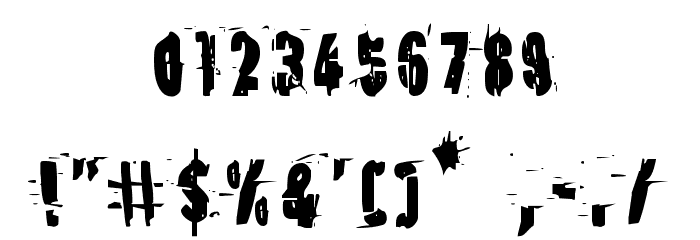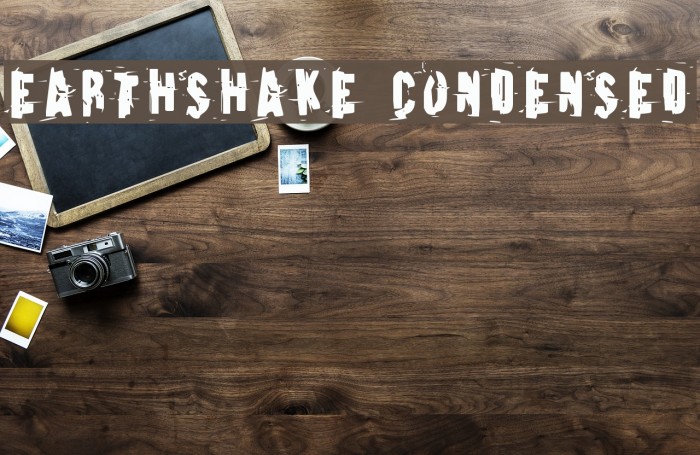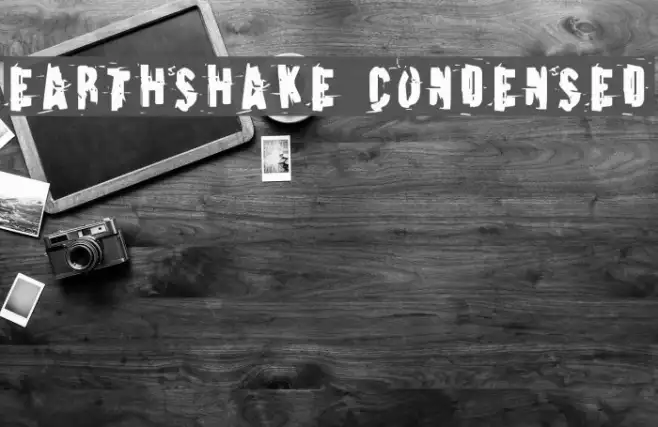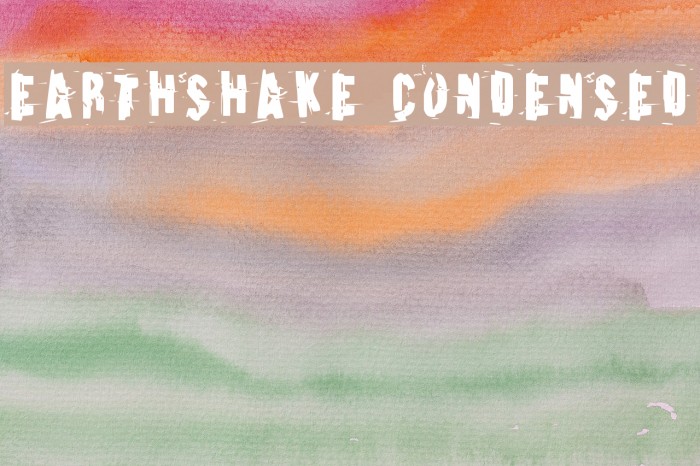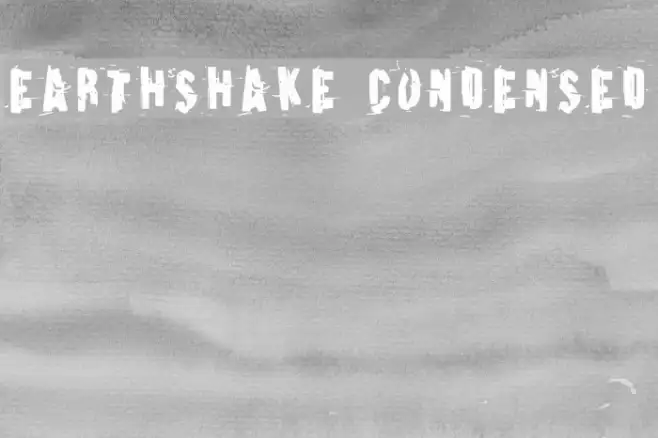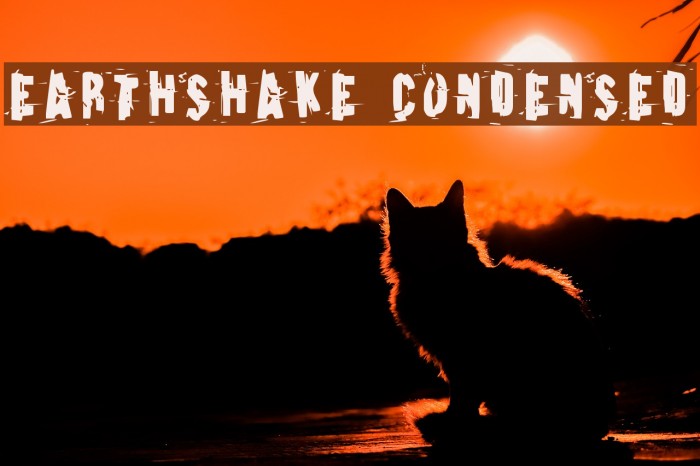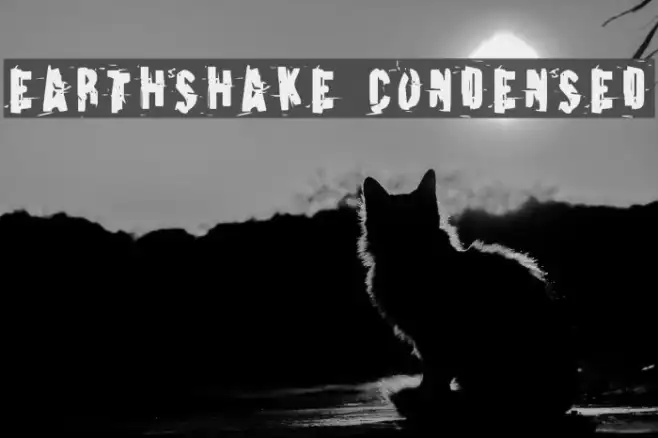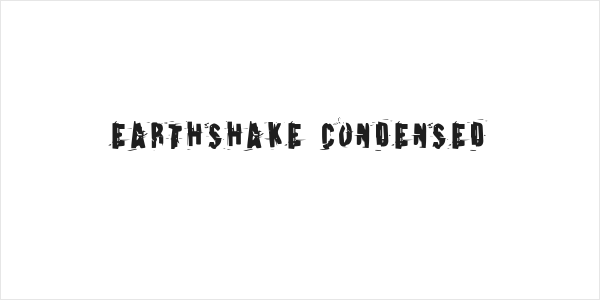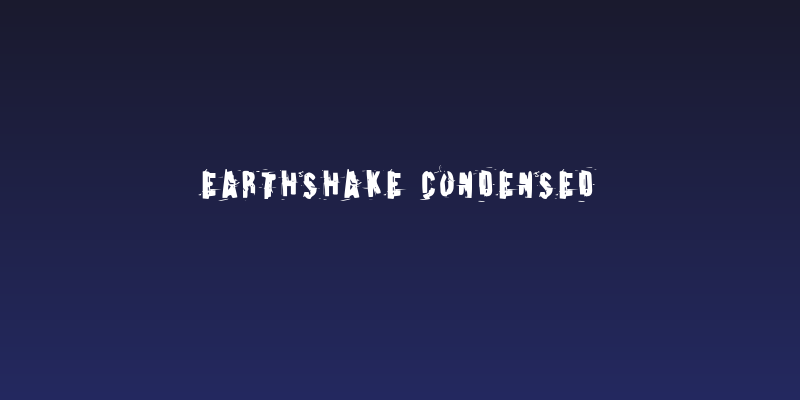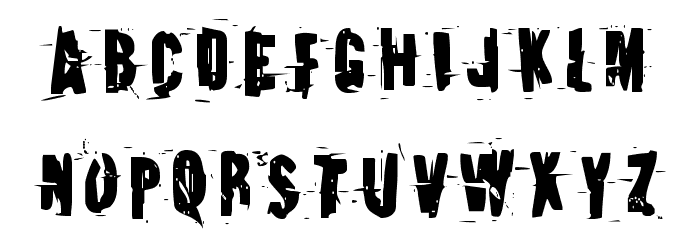
Earthshake Condensed Font
Earthshake Condensed Description
This font features a bold and distressed style, with each character appearing as if it has been weathered or eroded. The letters are condensed, giving a compact and impactful appearance. The irregular edges and rough texture contribute to a rugged and edgy aesthetic, making it stand out in any design. The uppercase and lowercase letters maintain a consistent style, while the numbers and special characters follow the same distressed theme. This font is ideal for projects that require a bold statement or an industrial, grunge look.
| Overall Style | Grunge, Industrial |
| Proposed Projects | Ideal for posters, album covers, urban-themed designs, and any project needing a bold, grunge look. |